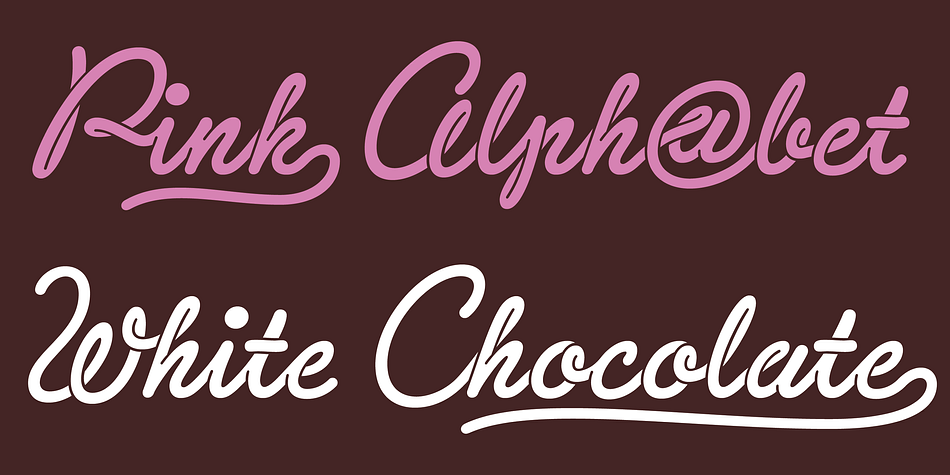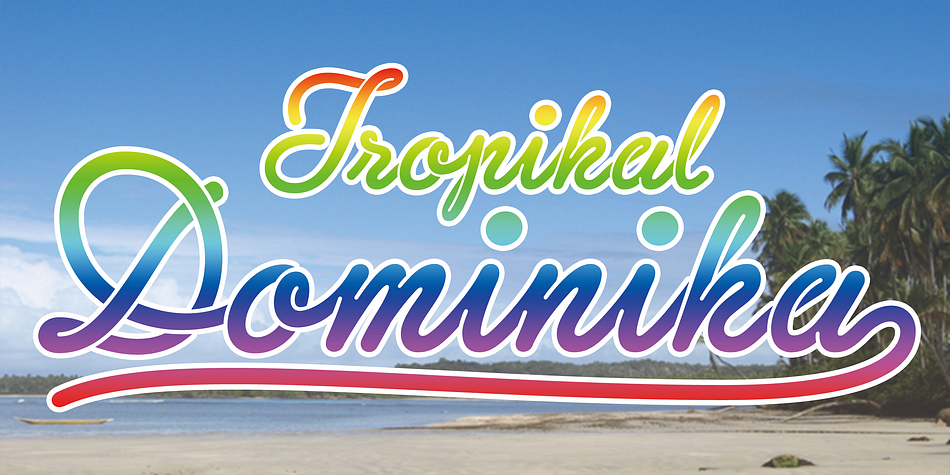
Sneaker Script is a script font published by Dharma Type.
This script loops and loops like a spaghetti using the power of OpenType alternates. The lettering made by this font would evoke your young days in the 60s & 70s.